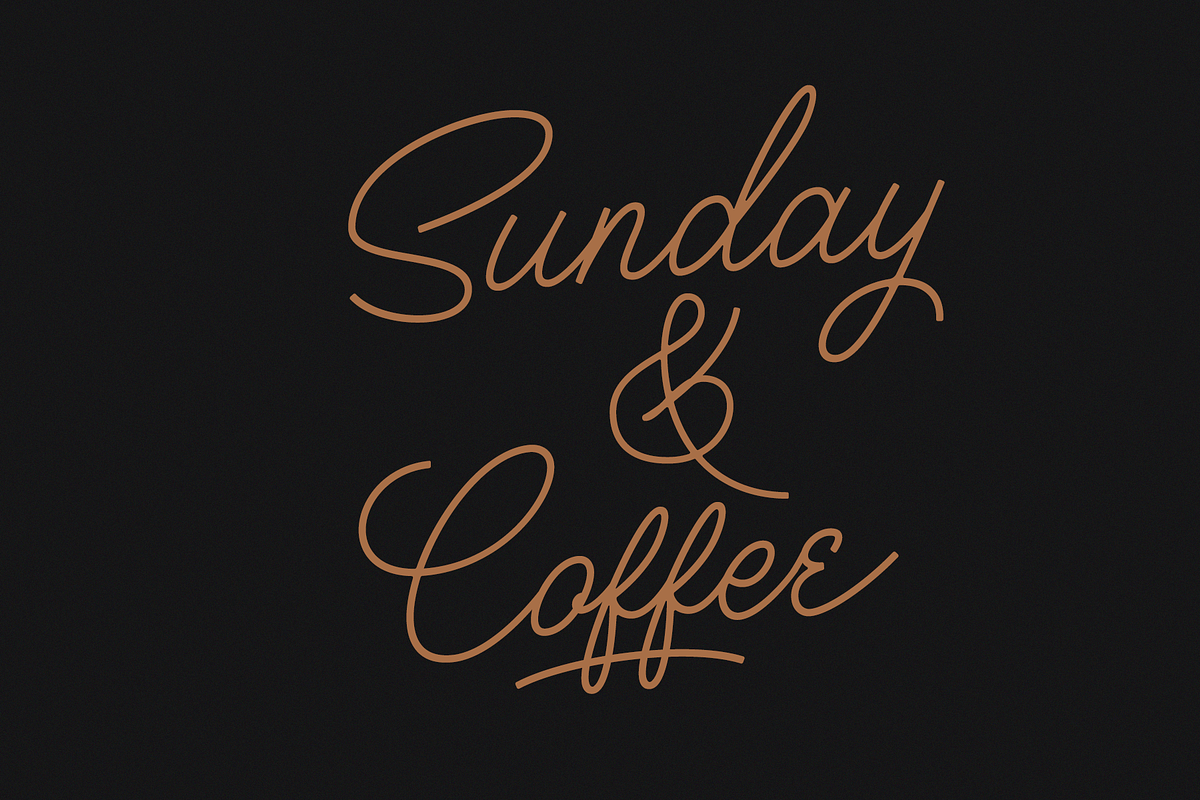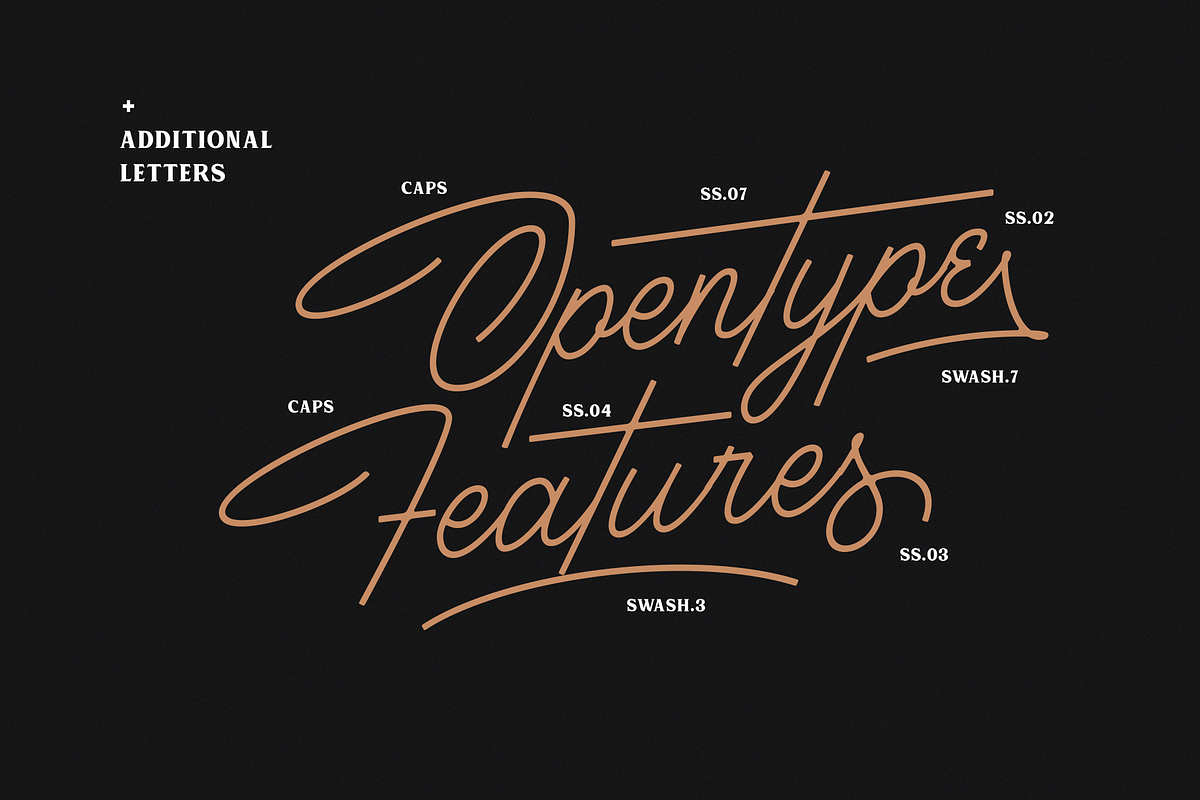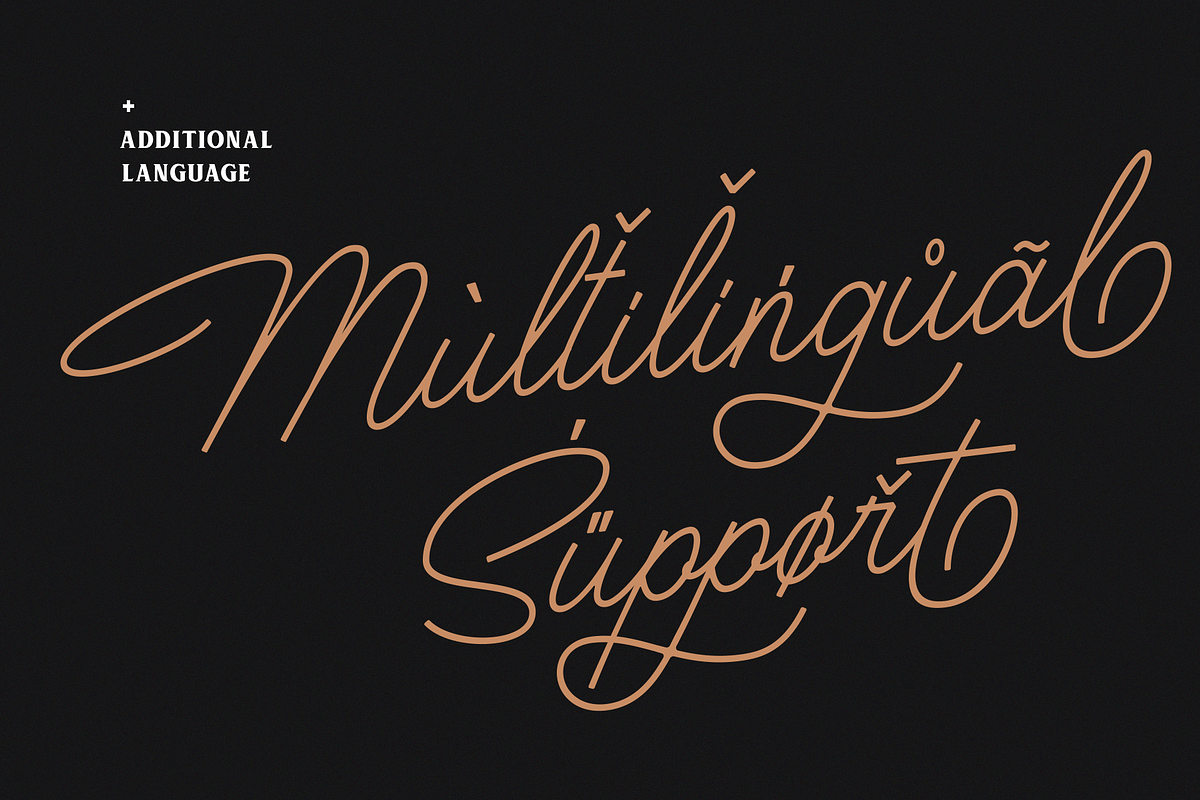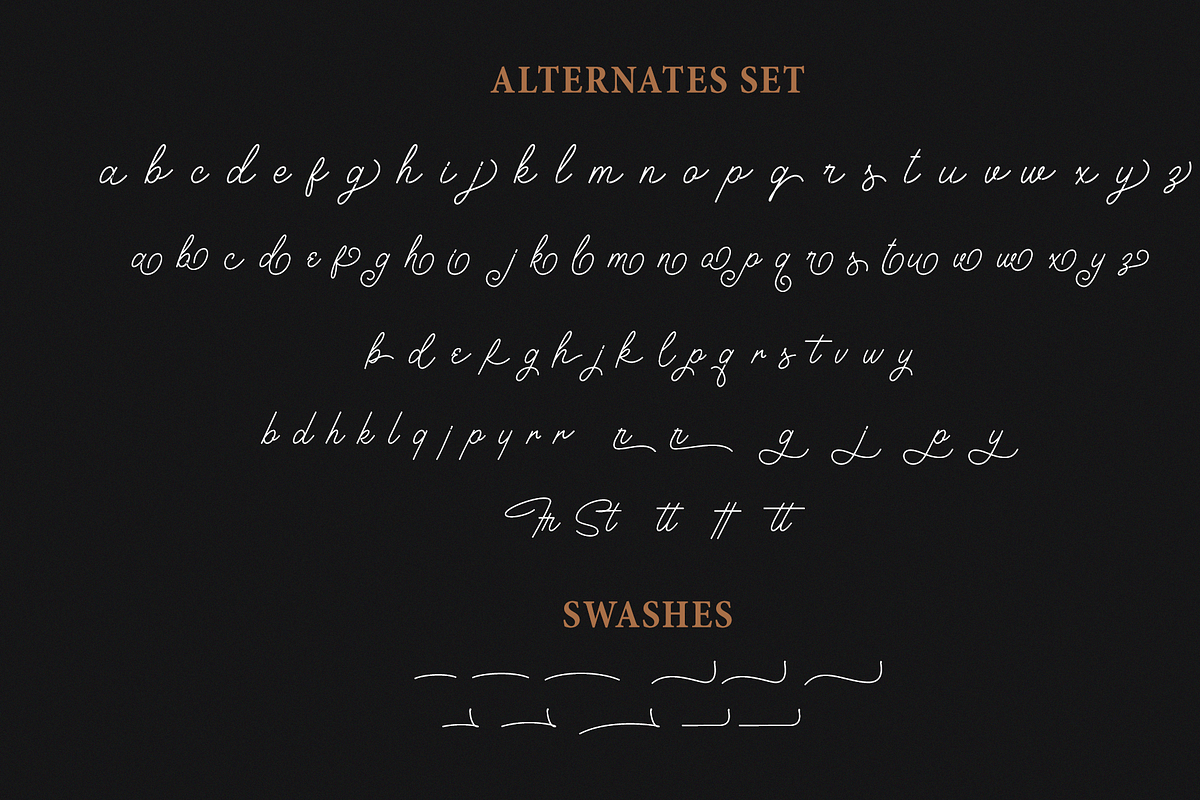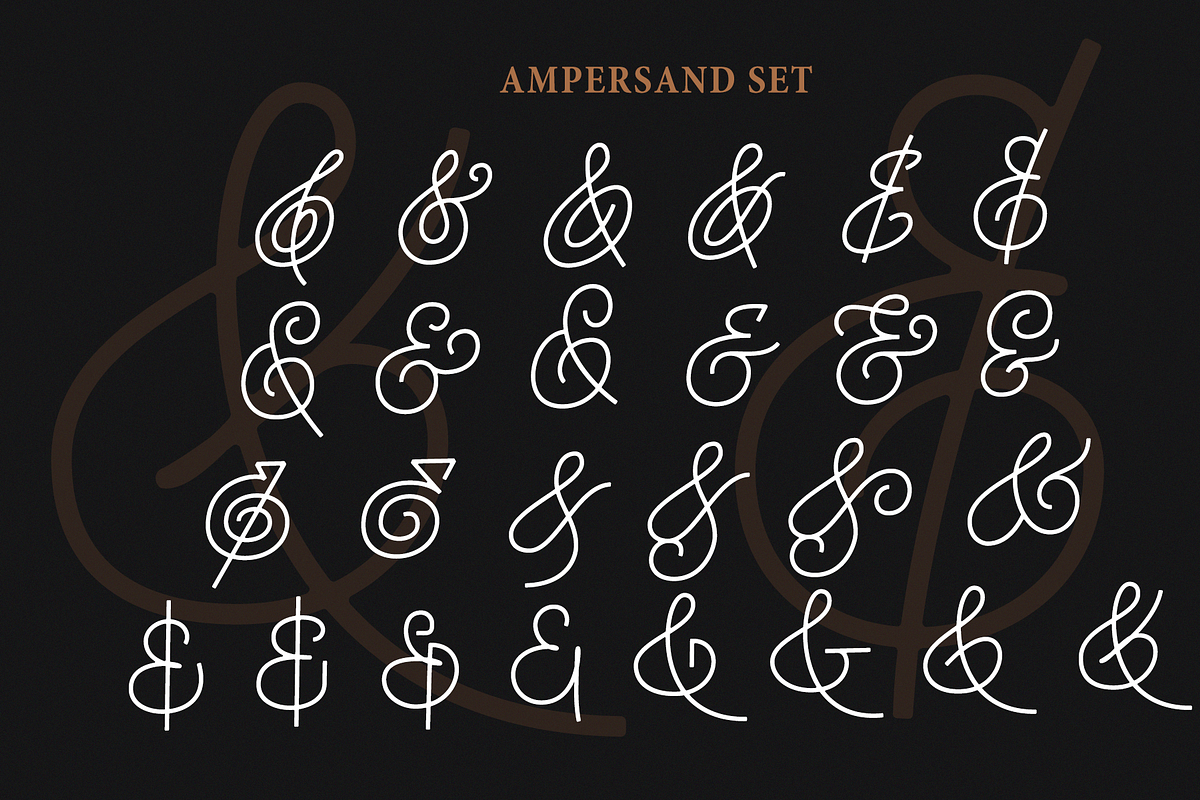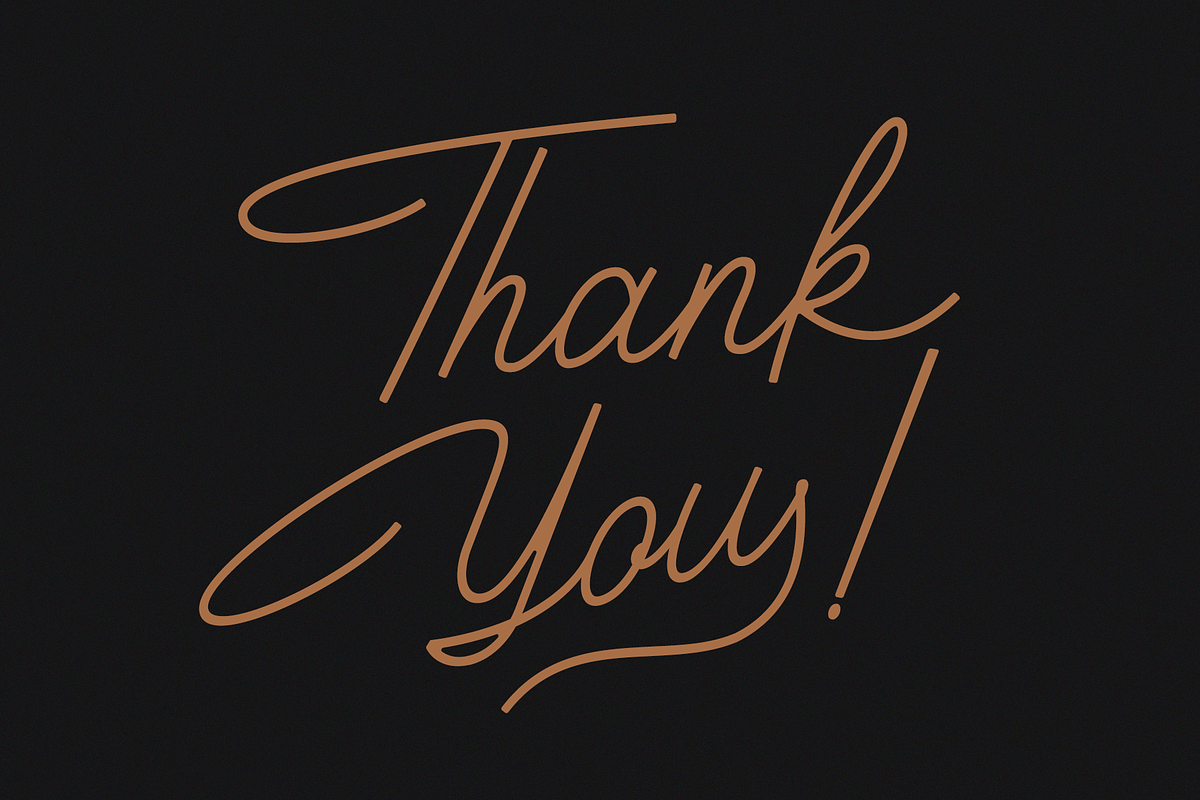
Houstoner Script is a signature script font designed with carefully handcrafted. Also suitable for branding, T-shirt, Wedding Invitation, Classic Design, Logotype, and any project. With two style make you easier to design everything. Comes with many ampersand set to make your design prettier than yesterday, this font also can make you happy when you design something even that you don't like, and of course this font make your design classy, elegant, luxury and come with reasonable prices for this unique font.